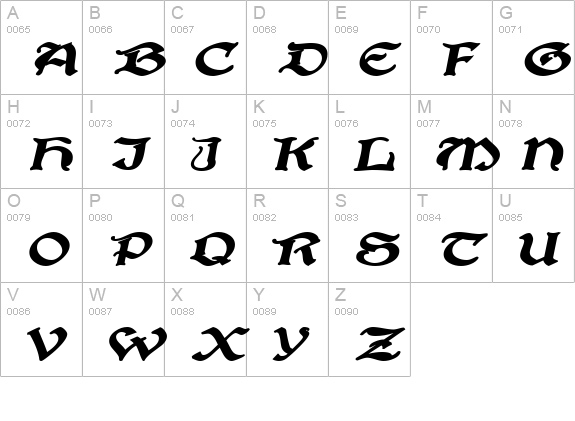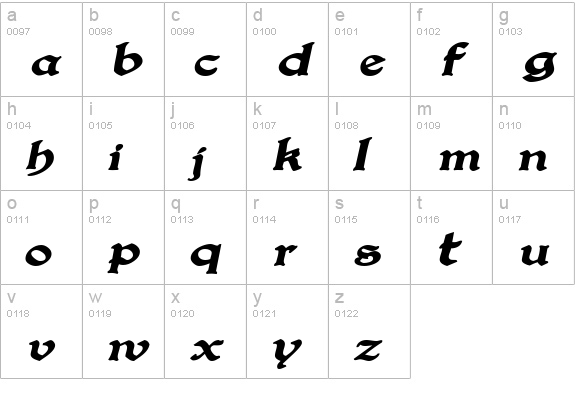
BucaneerSSK BoldItalic font is a bold and dynamic typeface that exudes a sense of adventure and excitement. Its swirly, italicized design gives off a strong and daring vibe, perfect for projects that require a touch of boldness and creativity. This font is ideal for designs that need to stand out and make a statement. The best part? BucaneerSSK BoldItalic font is available for free download at FontsMarket.com. You can easily access this unique font and enhance your projects with its distinctive style. Whether you're working on a poster, logo, or any other design project, BucaneerSSK BoldItalic font will add that extra flair and personality to your work. Download it today and let your creativity soar!